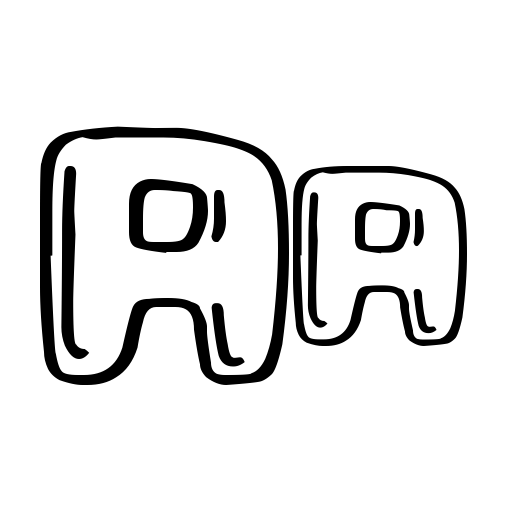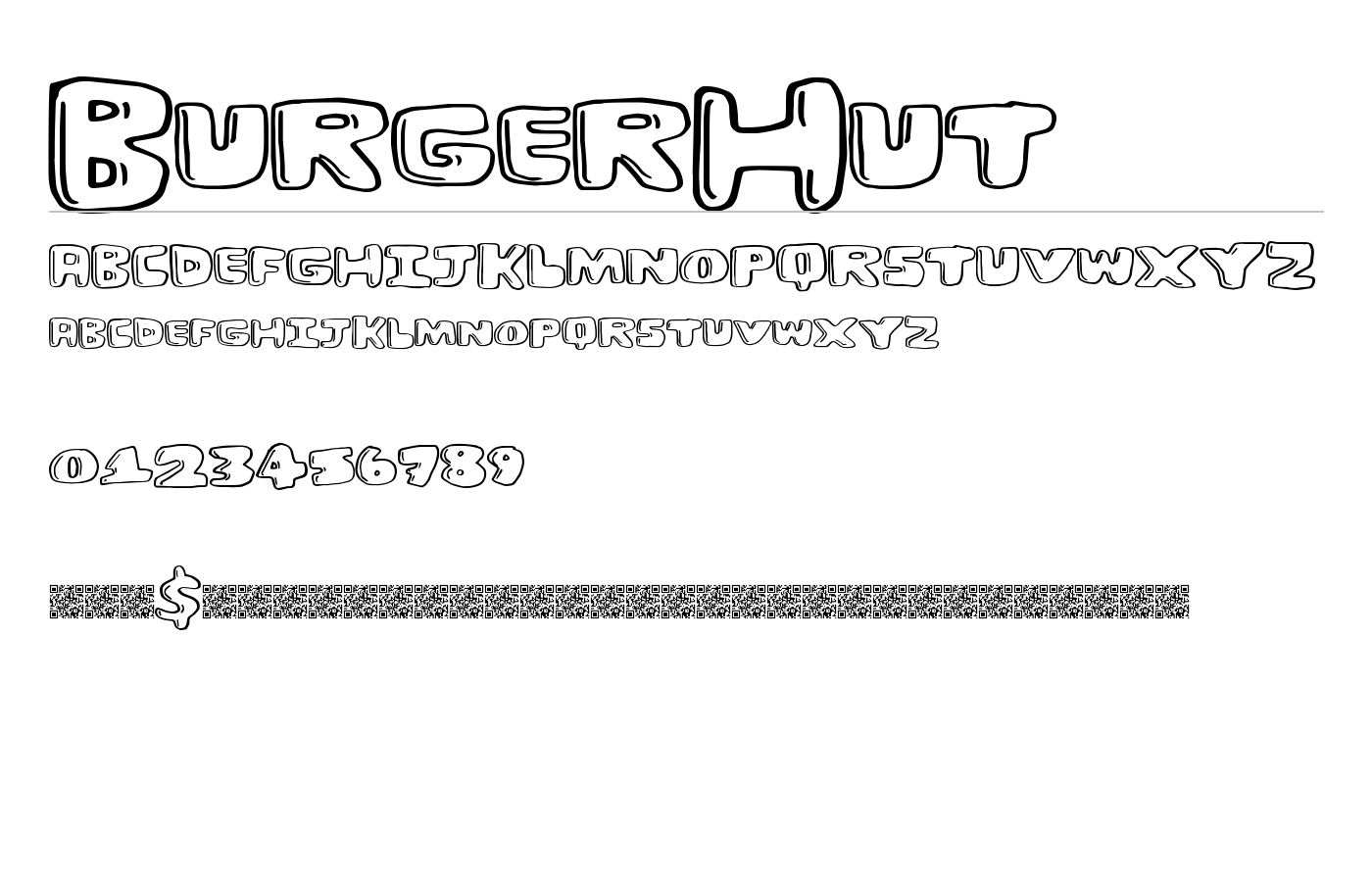
BurgerHut is a playful, hand-drawn sans serif font with a bold and rounded style that gives it a fun and approachable personality. Its irregular, slightly bubbly letterforms make it ideal for casual branding, children’s products, and food-related designs where a friendly, informal feel is desired. This font works best in logos, headlines, and packaging where a lively and memorable impression is important.
BurgerHut Font